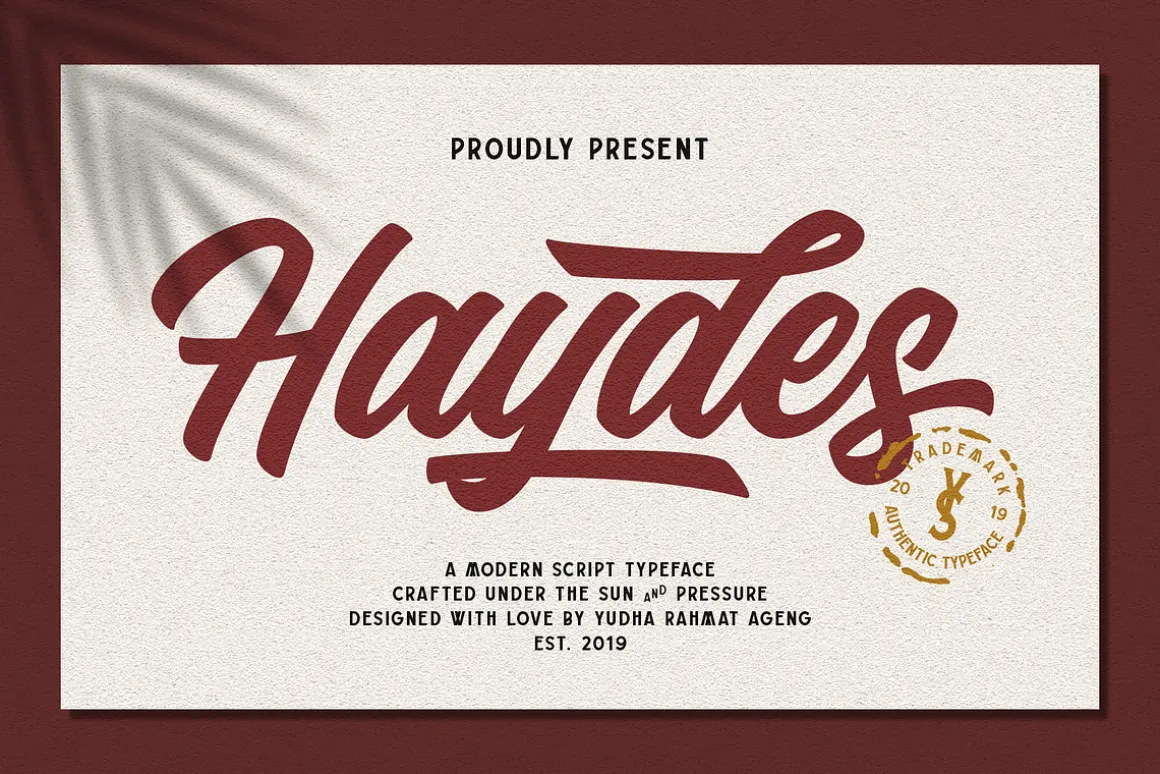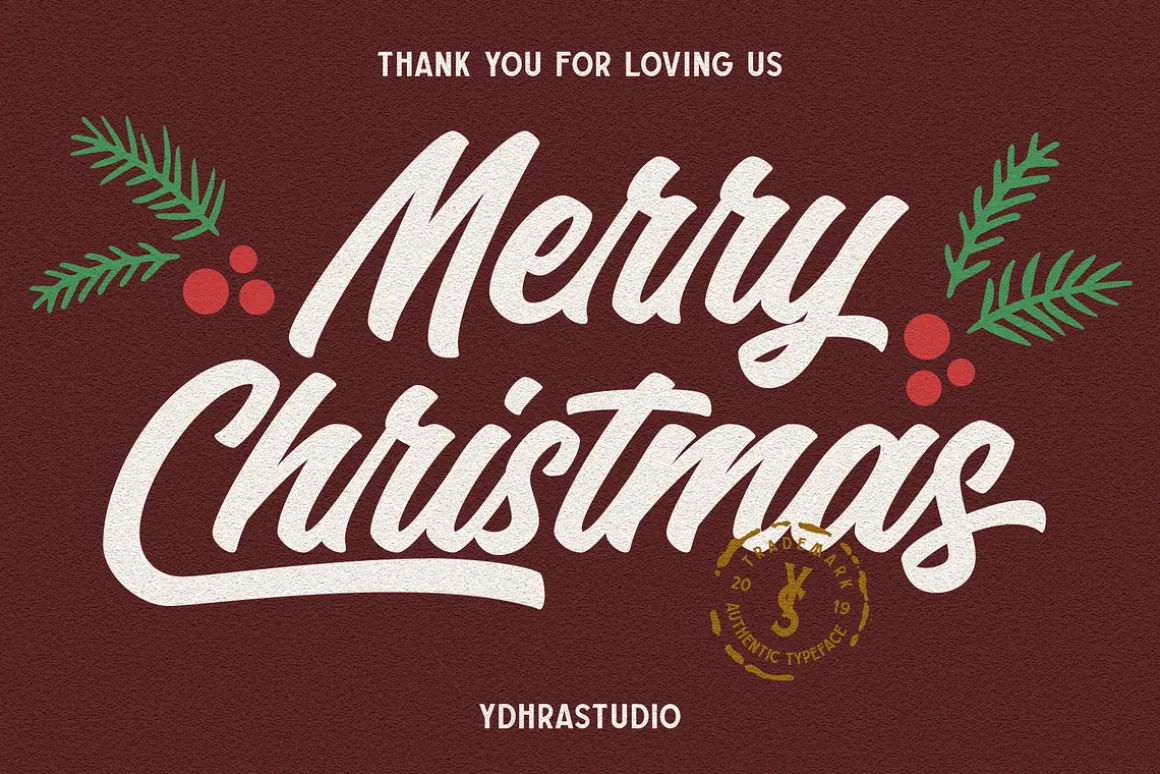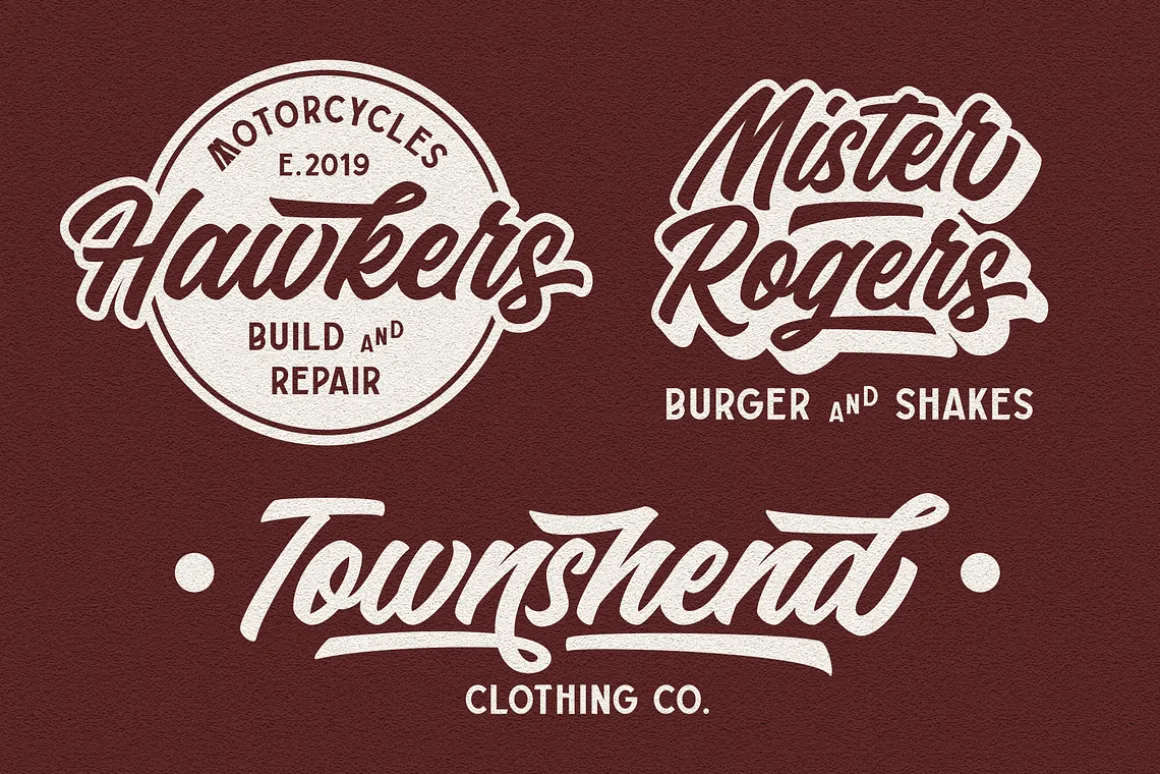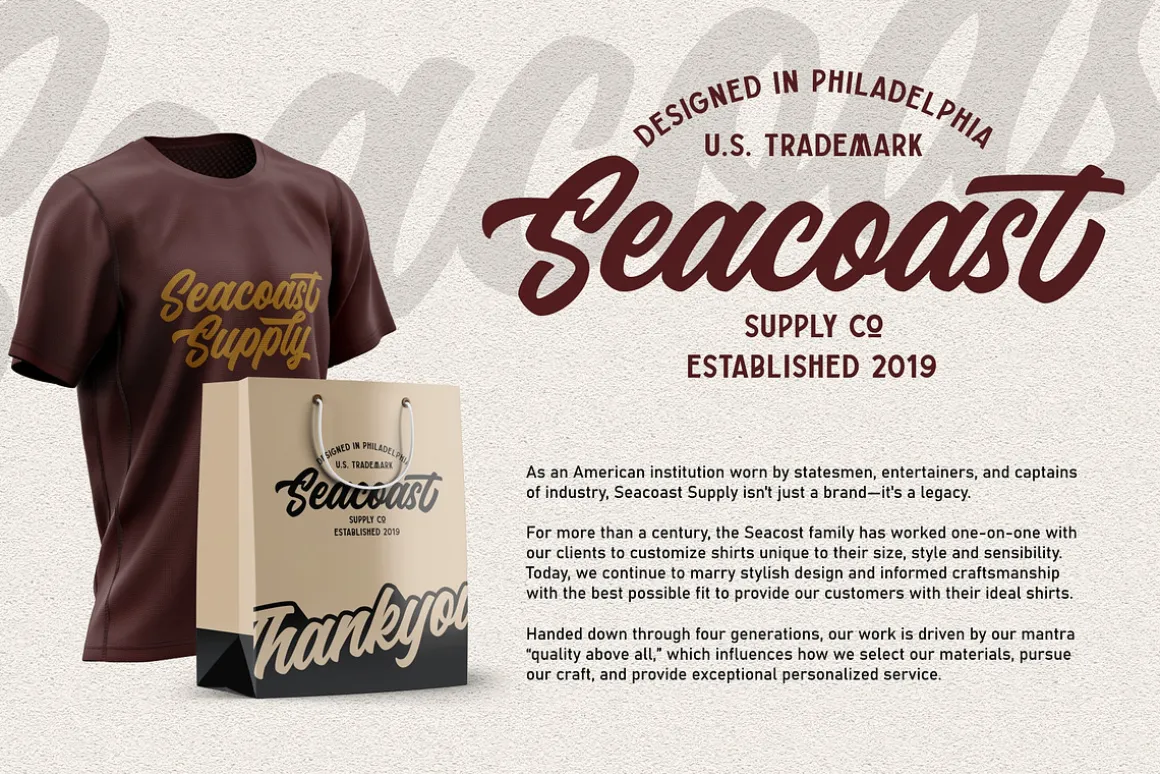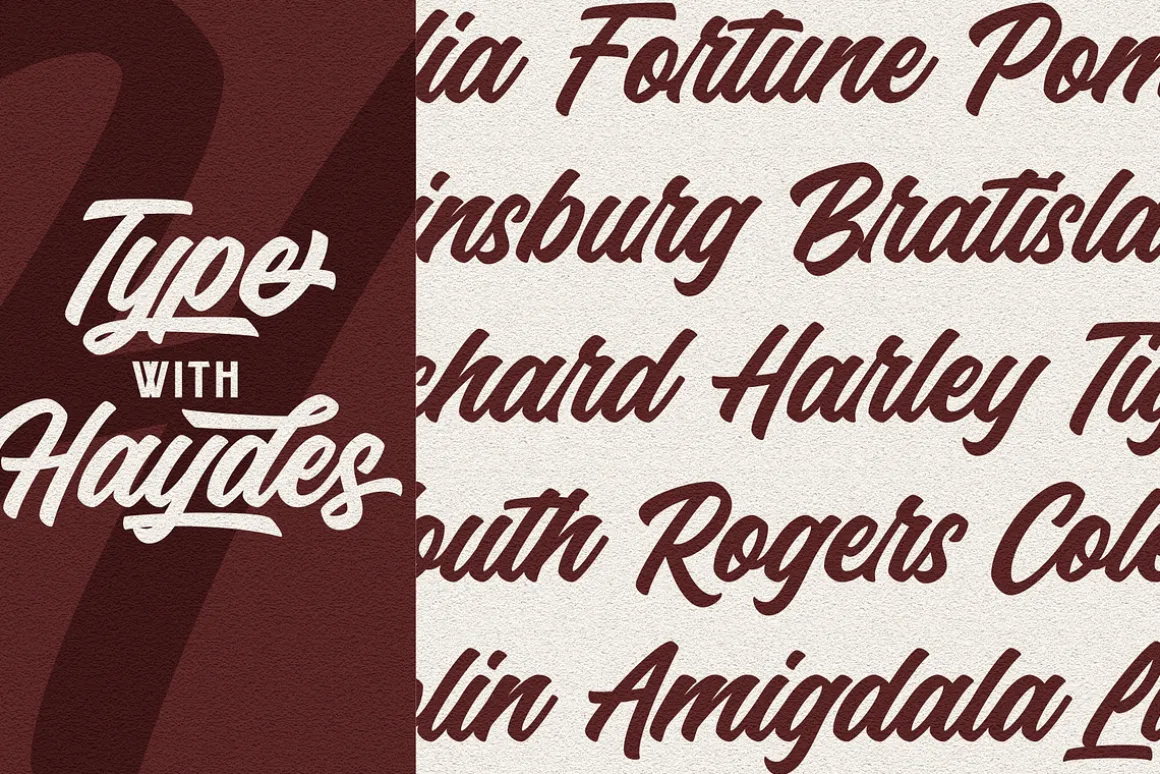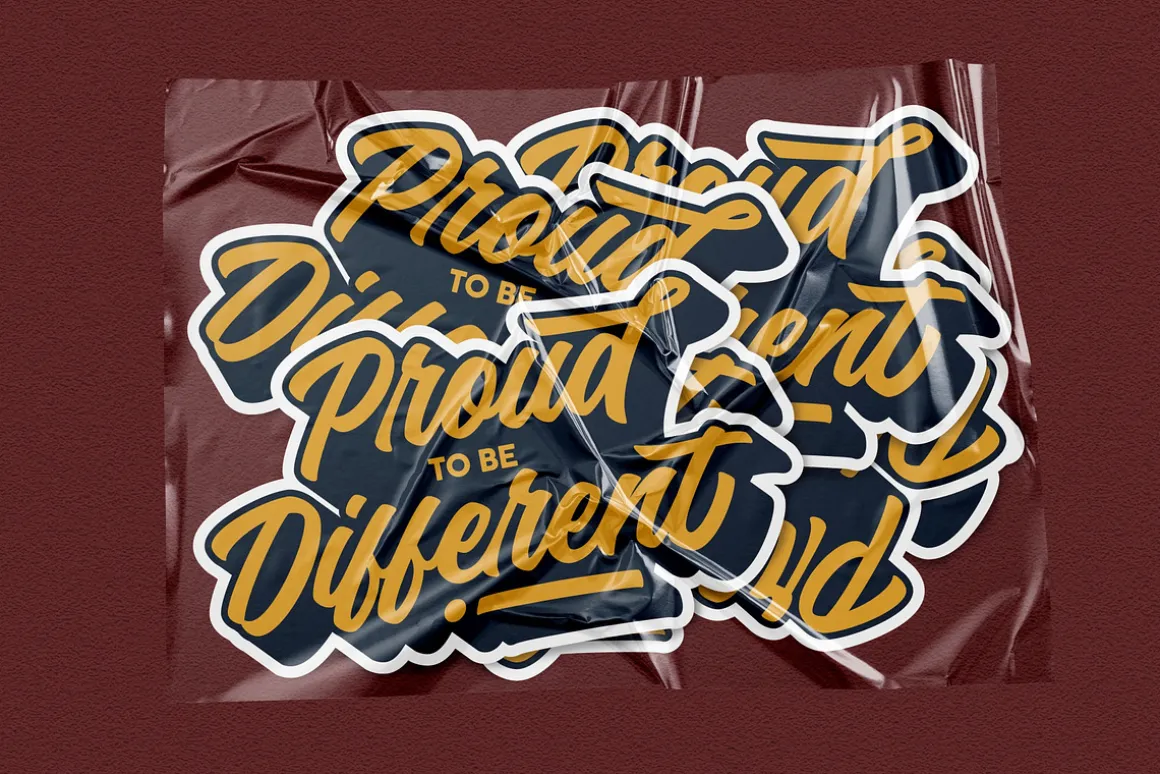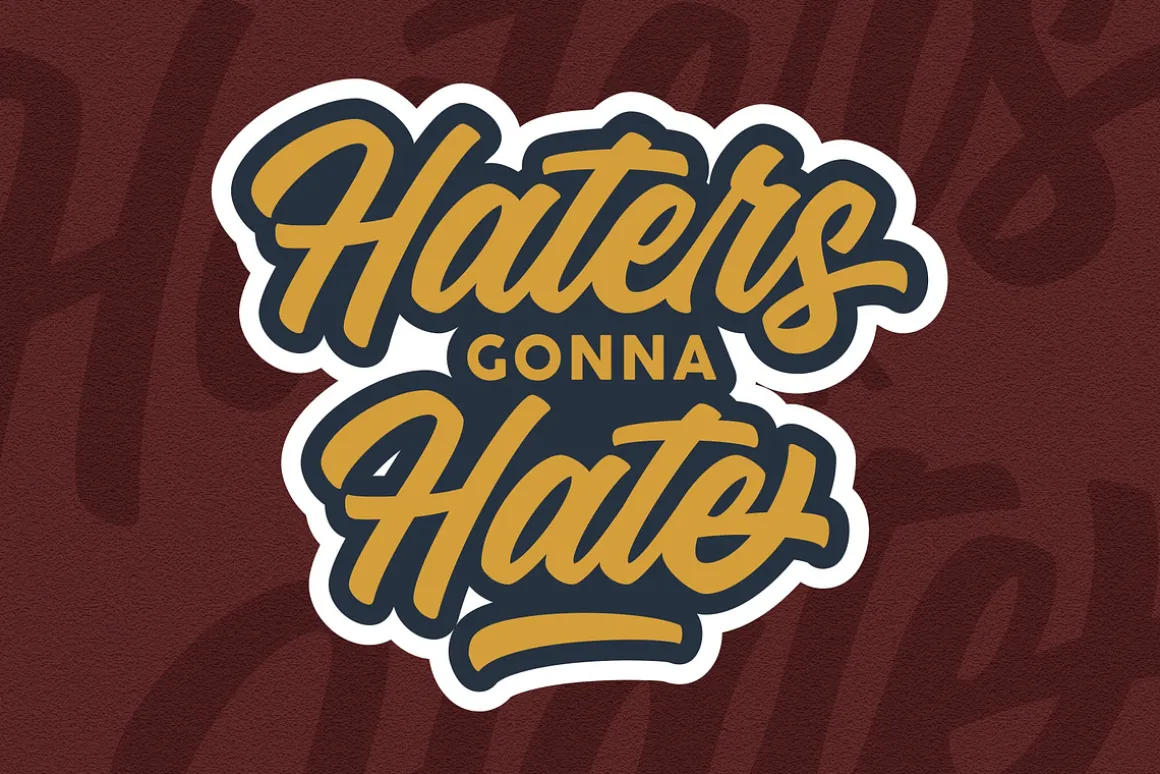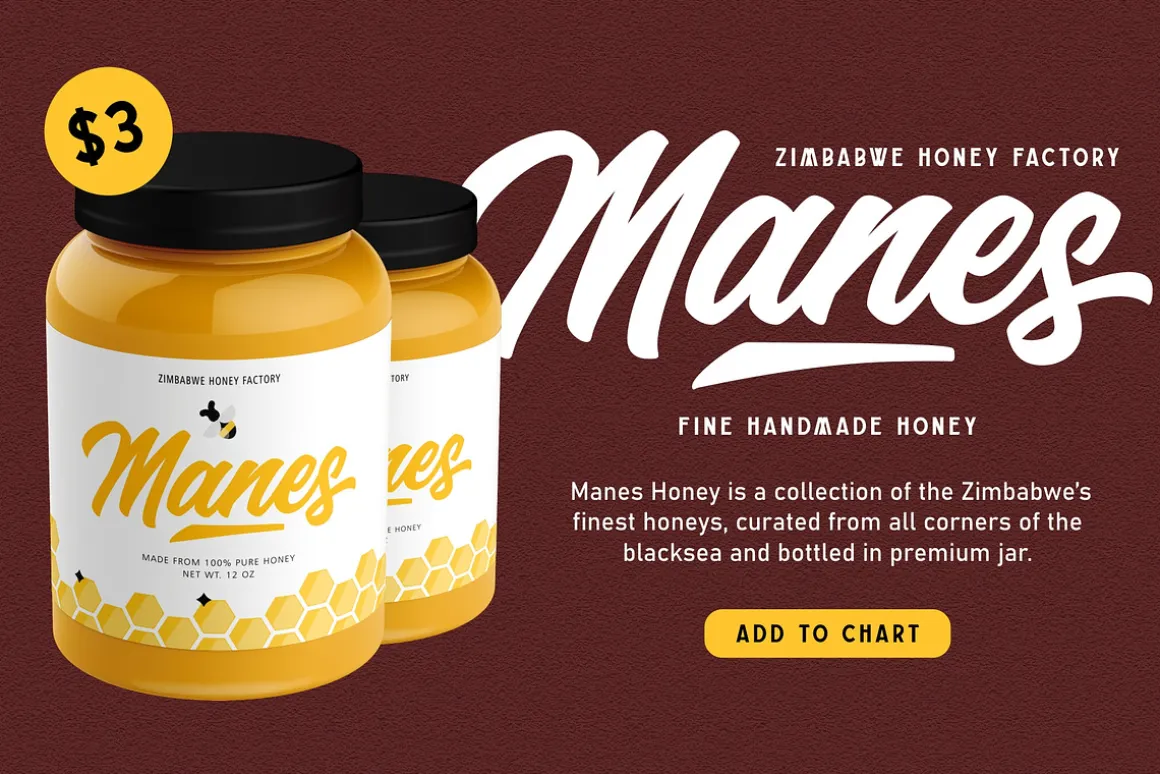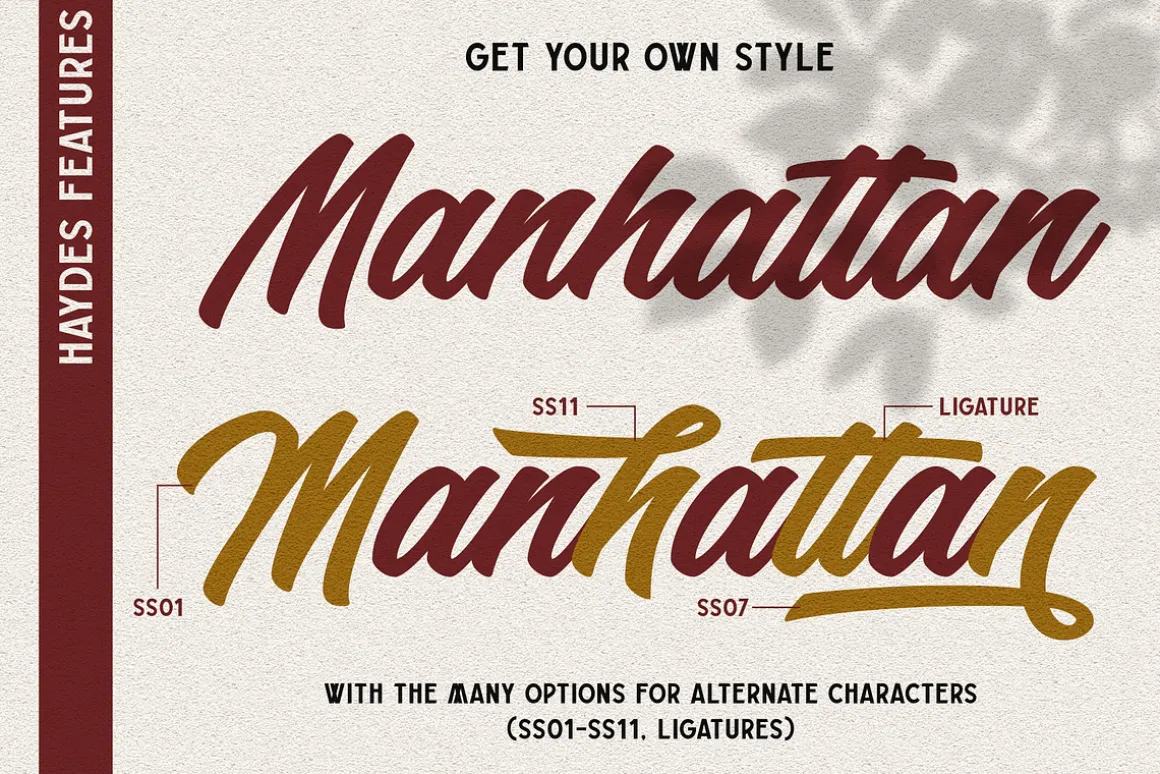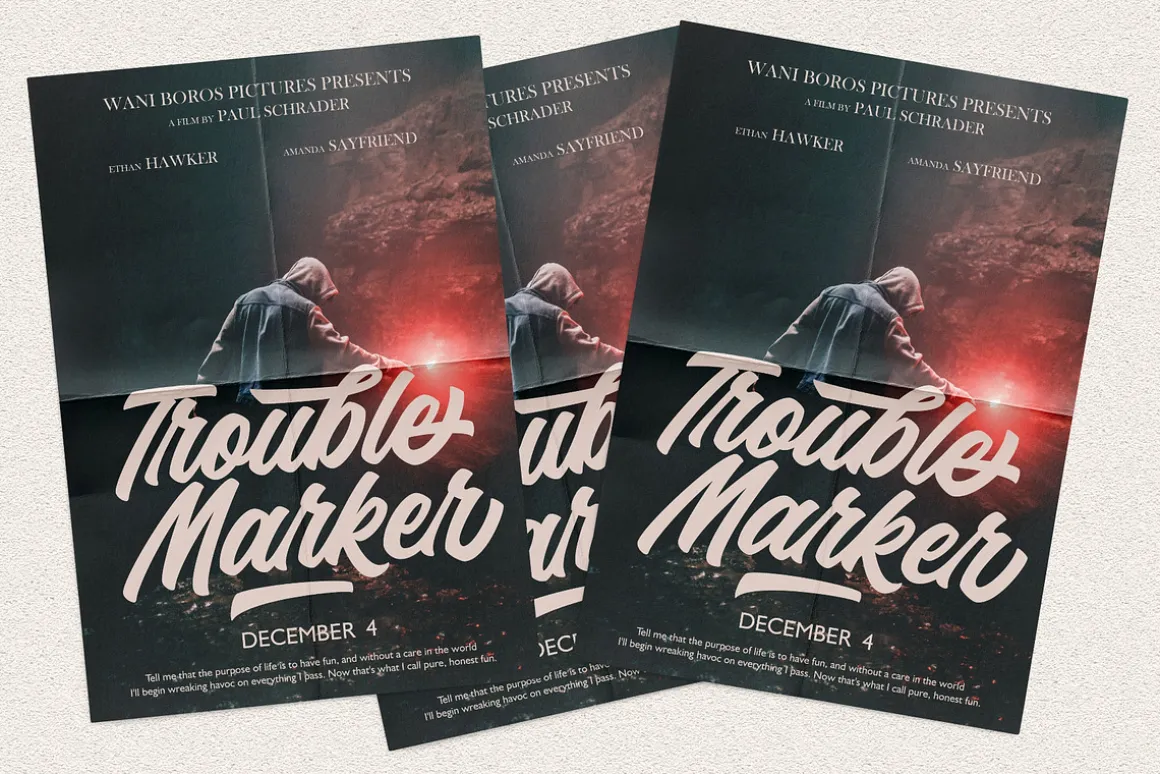
Haydes is a hand brush typeface with authentic Clean Brush imperfections. Haydes includes many different alternates for each lowercase and uppercase letter. It’s extremely fun to use as each word can be transformed to your liking. We give you Bonus a Swash to make your design look more awesome with Haydes.
Haydes also has a standart Multilingual Support.
Haydes is great for Logotype, Branding Design, Logo Design, Digital Lettering Arts, Poster, T-Shirt/Apparel, Magazine, Quotes, Signs, Instagram Design, Advertising Design, and any Type Design needs.
Haydes Features :
- Upper and Lowercase Standard Characters, Punctuation, Numerals.
- Opentype Features such as Standard Ligatures, Discretonary Ligatures and Stylistic Set (ss01 – ss11) and swashes.
- Includes a range of multilingual characters.